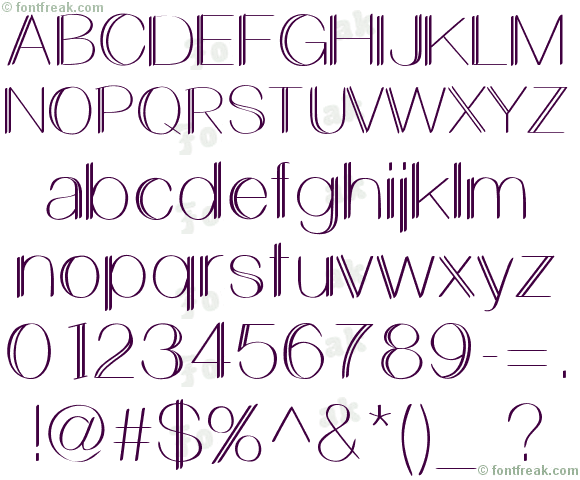
LemonCookieSans
About LemonCookieSans
LemonCookieSans, designed by Shara Weber, is a unique sans-serif typeface that embodies a playful yet sophisticated aesthetic. With its slender stroke weight and minimal contrast, the font offers a clean and contemporary look that is both approachable and stylish. The letterforms exhibit a slight curvature, contributing to a friendly demeanor, while the ample spacing between characters enhances readability, making it suitable for various applications.
This versatile font is particularly well-suited for a range of creative projects. It shines in wedding invitations, where its lighthearted charm can convey a sense of joy and celebration. Additionally, it works beautifully on restaurant menus, giving a modern flair that complements a variety of culinary themes. Graphic designers will find it effective for branding materials, such as logos and business cards, where a touch of whimsy can leave a lasting impression. Moreover, content creators can leverage the LemonCookieSans font for social media graphics, ensuring their posts stand out in crowded feeds.
What sets the LemonCookieSans font apart is its ability to blend professionalism with playfulness, making it adaptable across various contexts. Whether you’re crafting a heartfelt invitation or a striking logo, this font delivers a unique touch that resonates with audiences. With its engaging style and versatility, the LemonCookieSans font free download is an invaluable resource for anyone looking to elevate their design work.